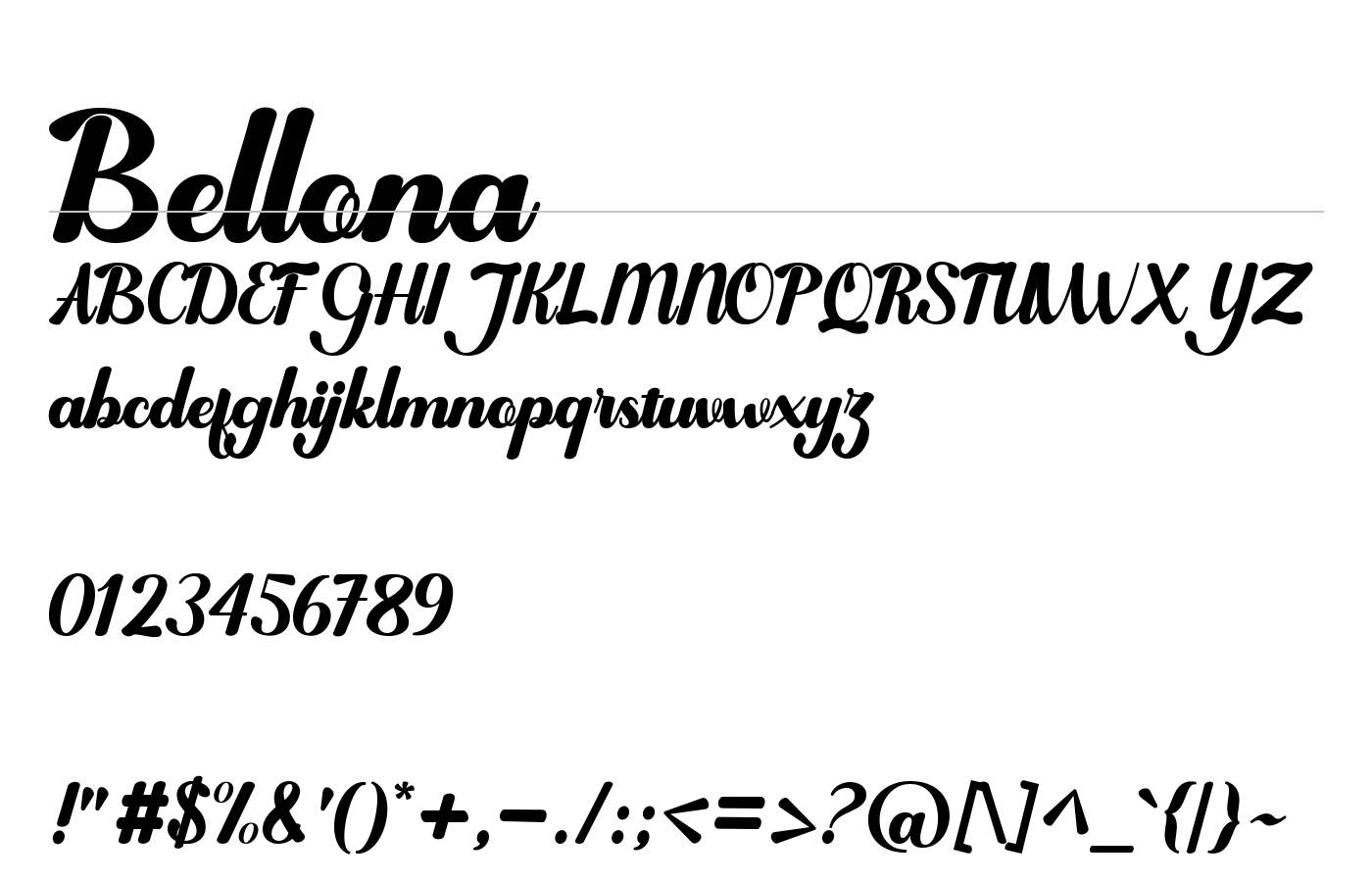
Bellona is a stylish serif script font featuring smooth, flowing strokes and elegant curves, with a moderate contrast between thick and thin lines. It conveys a classic yet lively personality, making it perfect for luxury branding, invitations, and sophisticated editorial use where a refined, artistic touch is desired. Its balanced letterforms and clear readability also make it suitable for eye-catching headlines and logos.
Bellona Font
About Bellona Font
| Font family | Bellona Font |
| Designer | Haikal Juanda |